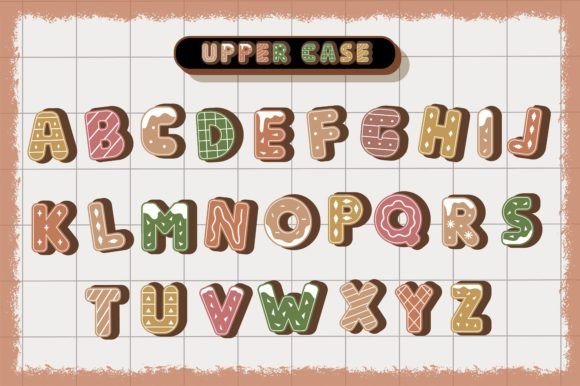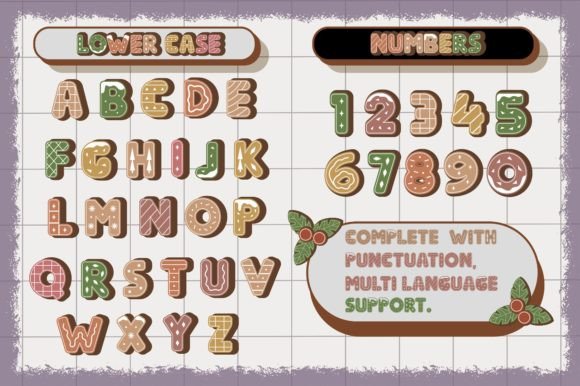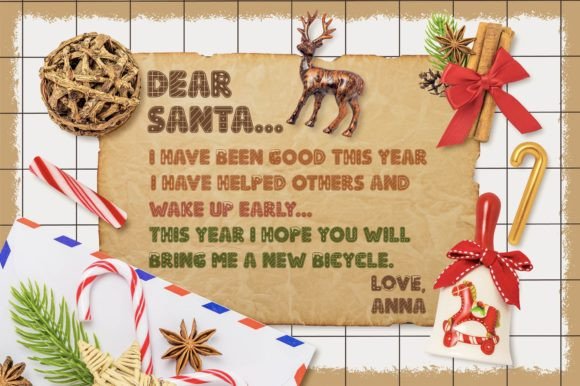
Introduction to Cookies for Santa Font
Cookies For Santa is a bold decorative font with a Christmas theme.
Make your holiday season bright and festive with the Cookies For Santa font .
Key Features of Cookies for Santa Font
Why Choose Cookies for Santa Font?